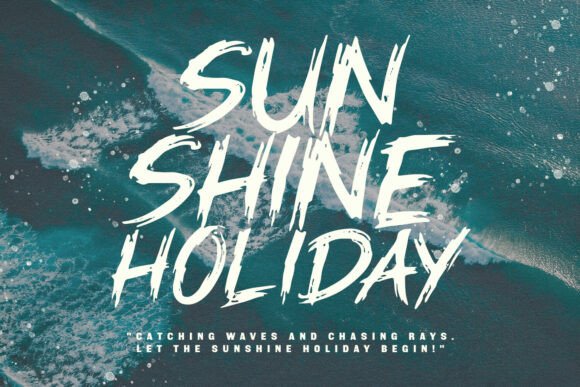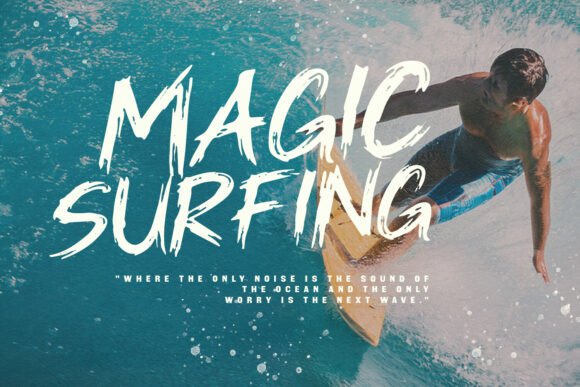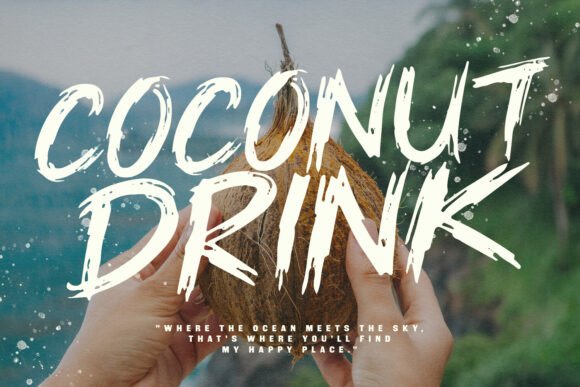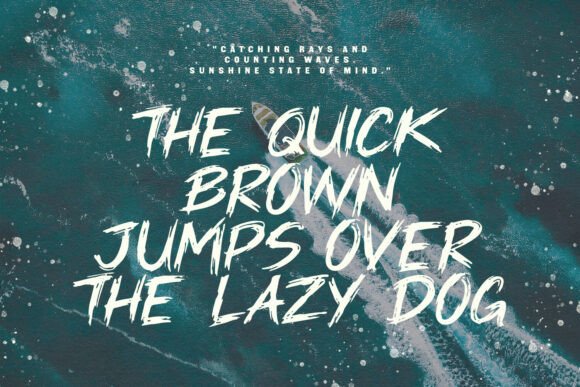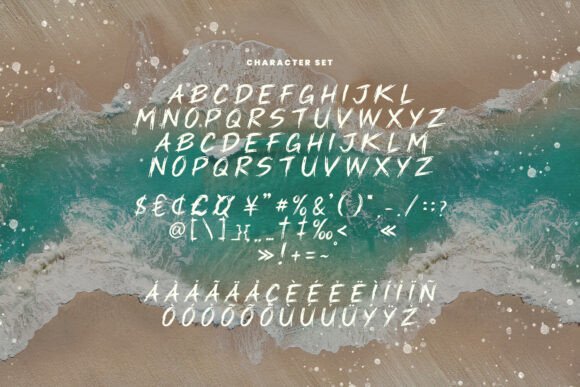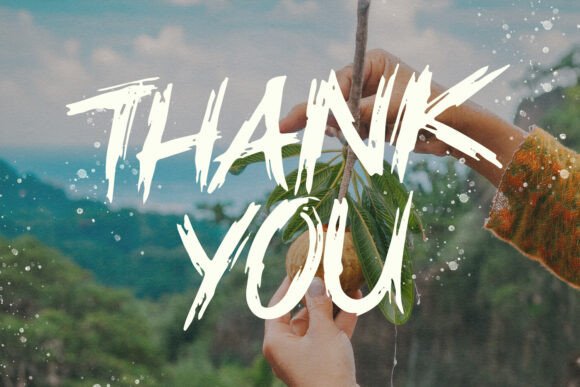
Unleash Your Creativity with Banly Thecs Font: The Ultimate Urban Brush Font
Are you tired of using the same old fonts in your designs? Do you want to make a bold statement and capture the attention of your audience? Look no further than Banly Thecs, a bold, aggressive urban brush font that’s perfect for designers and crafters who want to add a touch of edginess to their work.
The Inspiration Behind Banly Thecs
Banly Thecs is a font that’s deeply rooted in the urban landscape. Its raw, hand-painted strokes and high-energy texture evoke the untamed spirit of street art and the adrenaline of extreme sports. This font is perfect for designers who want to capture the essence of the city and bring a sense of rebellion to their designs.
The Versatility of Banly Thecs
While Banly Thecs has an “aggressive” nature that makes it perfect for heavy metal branding, action posters, and edgy designs, it’s surprisingly versatile. This font can also shine in tropical and summer themes, bringing a gritty, “rebel surfer” vibe to beachwear, travel blogs, and ocean-side events. Whether you’re designing for a music festival, a sports brand, or a travel company, Banly Thecs provides the raw impact your designs need.
Design Possibilities with Banly Thecs
With Banly Thecs, the design possibilities are endless. Here are a few ideas to get you started:
- Heavy Metal Branding: Use Banly Thecs to create bold, eye-catching logos and merchandise for heavy metal bands and music festivals.
- Action Posters: Create high-energy posters for action sports events, such as skateboarding competitions and extreme sports championships.
- Beachwear and Surf Brands: Bring a gritty, rebel surfer vibe to beachwear and surf brands with Banly Thecs.
- Travel Blogs and Ocean-Side Events: Use Banly Thecs to add a touch of edginess to travel blogs and ocean-side events, such as beach festivals and surfing competitions.
Why Choose Banly Thecs?
So why choose Banly Thecs over other fonts? Here are just a few reasons:
- Unique and Bold: Banly Thecs is a one-of-a-kind font that’s sure to make a statement in any design.
- High-Energy Texture: The font’s high-energy texture adds a sense of excitement and energy to any design.
- Versatile: Banly Thecs can be used in a variety of design contexts, from heavy metal branding to tropical themes.
Key Features of Banly Thecs Font
- Font Type: Urban brush font
- Font Style: Bold, aggressive
- Texture: High-energy texture
- Use Cases: Heavy metal branding, action posters, beachwear, surf brands, travel blogs, ocean-side events
Banly Thecs is a high-quality font that’s perfect for designers and crafters who want to add a touch of edginess to their work. With its unique and bold design, high-energy texture, and versatility, Banly Thecs is sure to make a statement in any design.